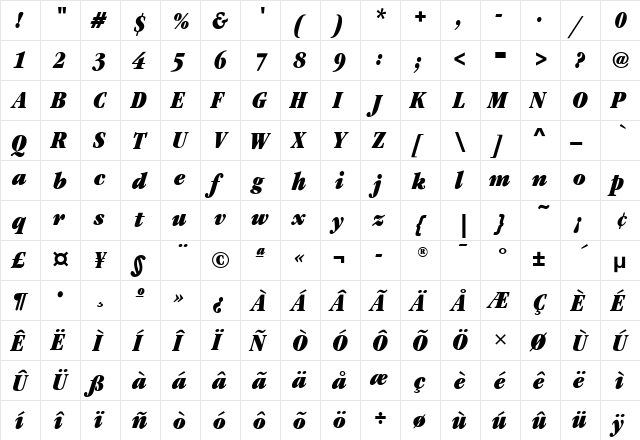
GaramondCdITC Ultra Italic Font Preview
GaramondCdITC Ultra Italic
GaramondCdITC Ultra Italic Font Details
| Style | Ultra Italic |
| Foundry | E+F Designstudios. ITC Garamond is a registered trademark of International Typeface Corporation |
Design Context for GaramondCdITC Typeface
GaramondCdITC offers clean, dependable letterforms without strong stylistic allegiance, making it a practical choice for designers who need flexibility. The slanted form adds forward momentum and visual energy.